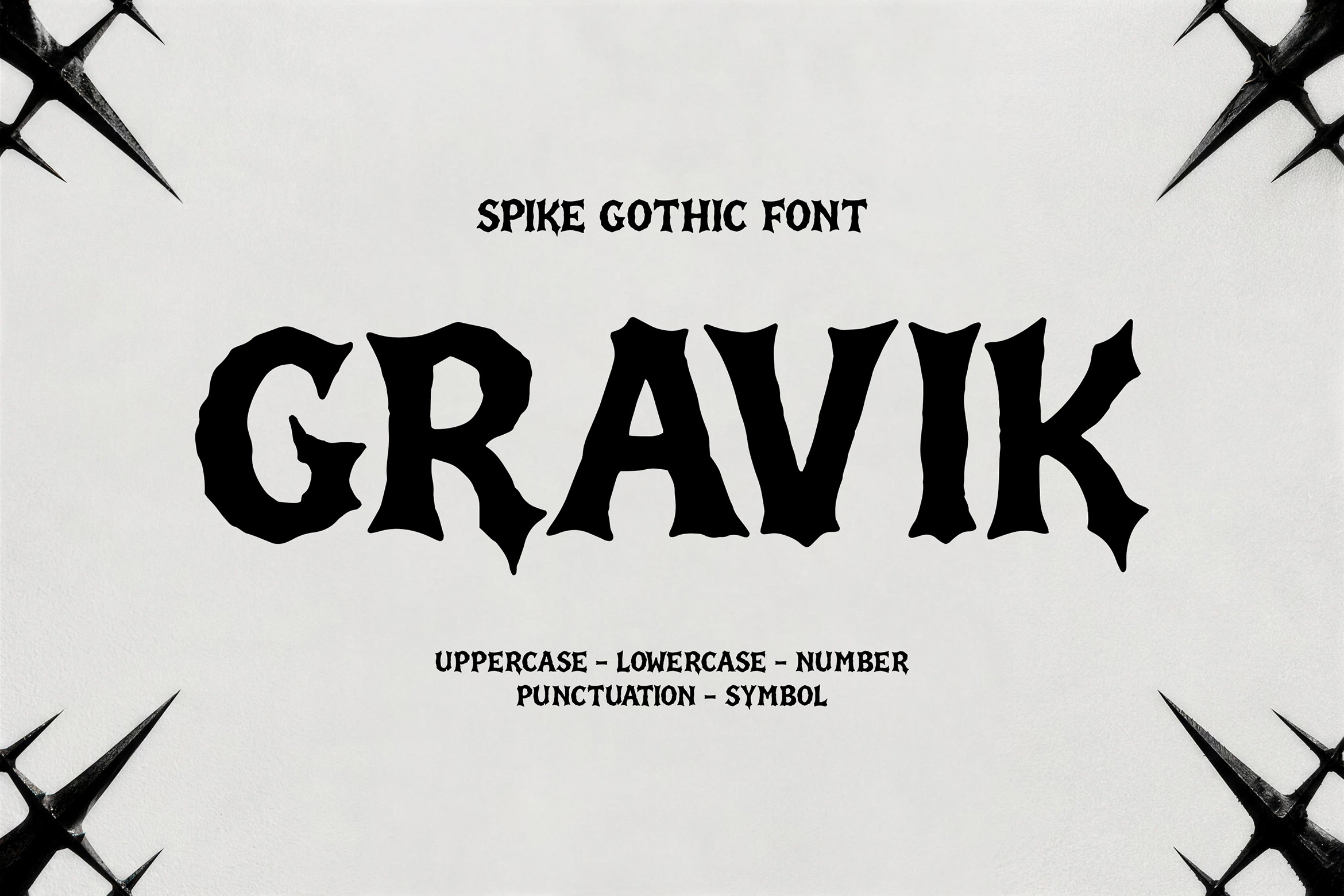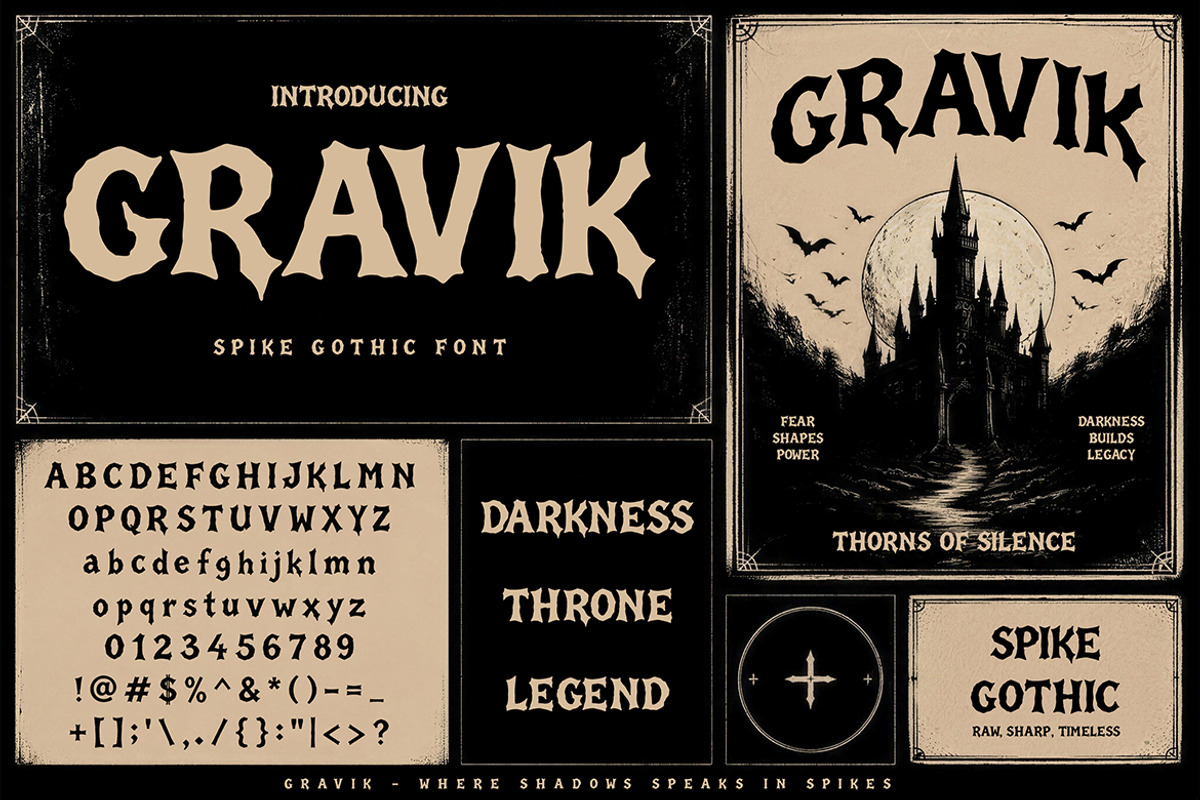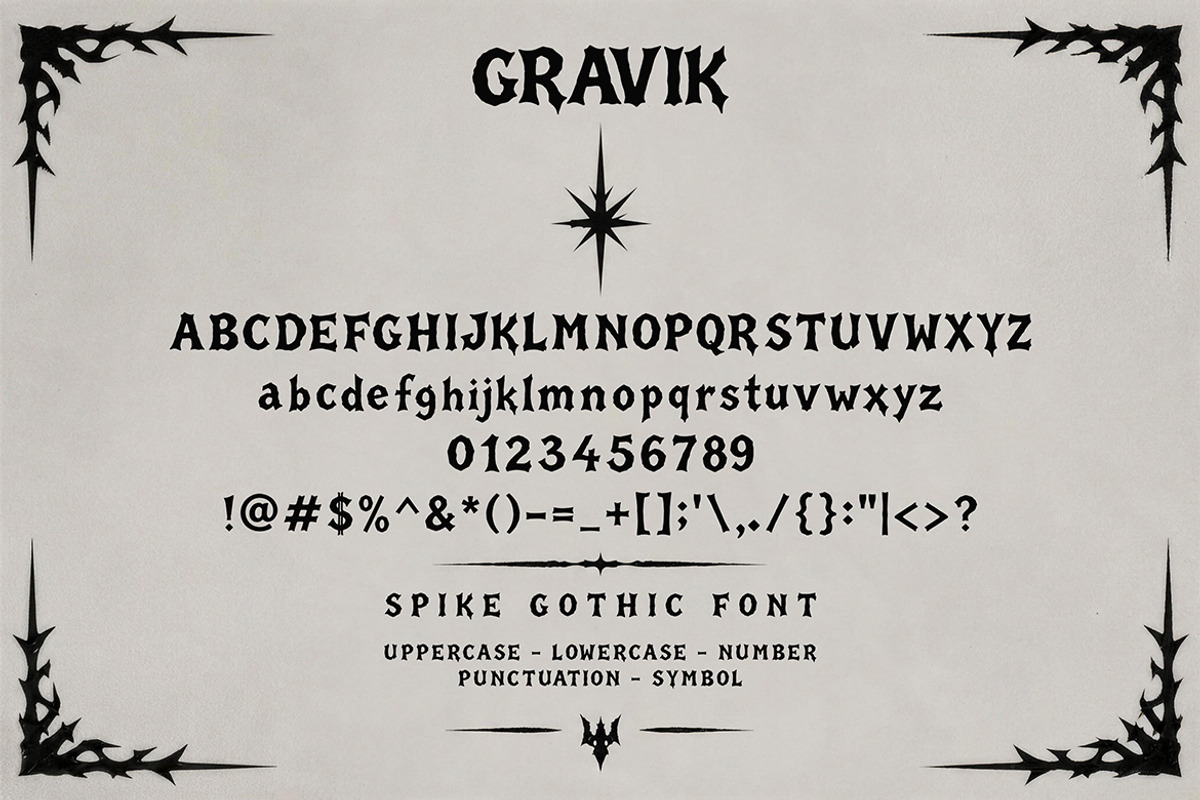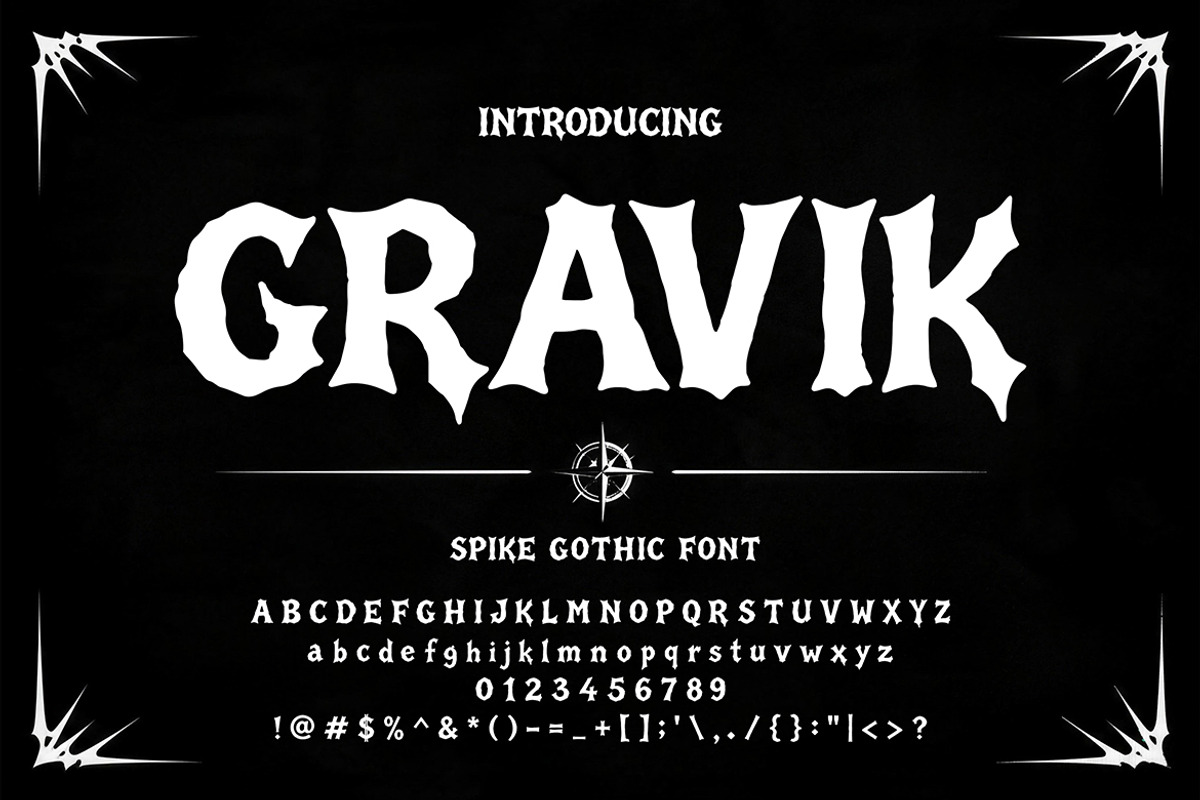
Gravik - Spike Gothic Font
Gravik is a bold spike gothic font with a dark, dramatic, and powerful visual identity. Inspired by gothic aesthetics and sharp medieval-inspired forms, this typeface features strong letter shapes with edgy details that create a haunting yet stylish appearance. With uppercase, lowercase, numbers, punctuation, and symbols, Gravik is ideal for designs that need a bold statement and a mysterious, intense atmosphere.
Gothic and dark-themed poster designs
Album covers and music artwork
Horror branding and merchandise
Editorial headlines with dramatic style
Fantasy, metal, and alternative creative projects
Gravik is a distinctive display typeface that brings bold gothic character, sharp attitude, and unforgettable impact to your creative work.